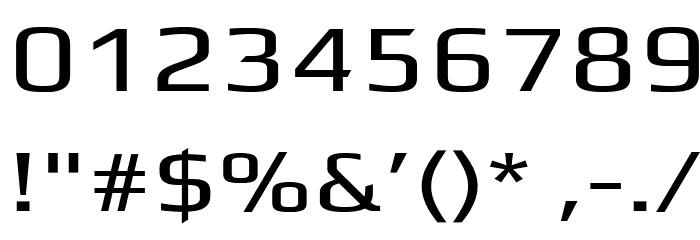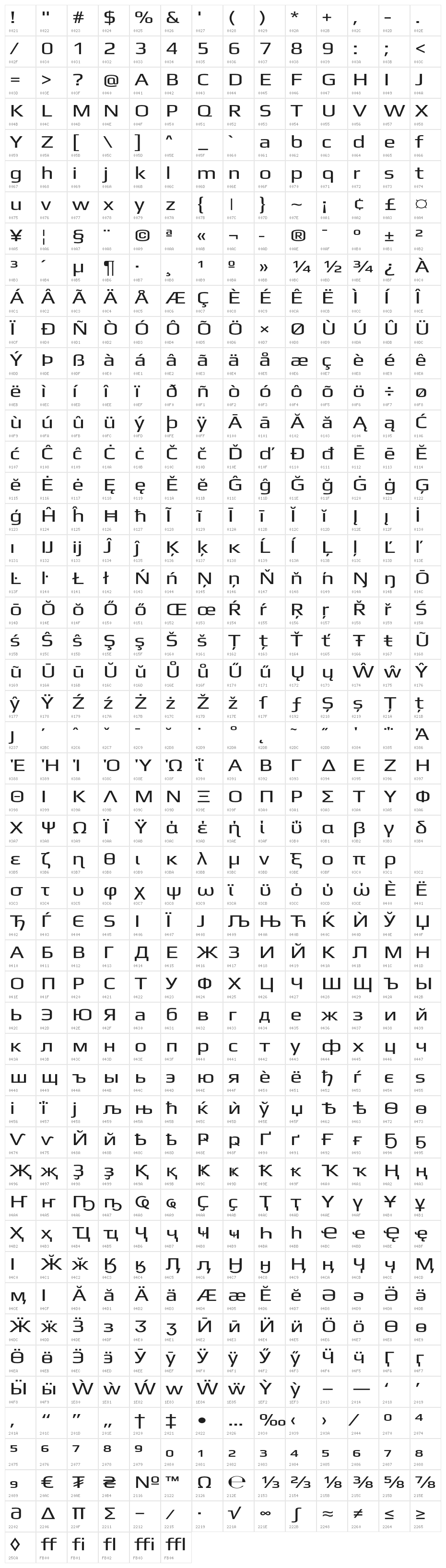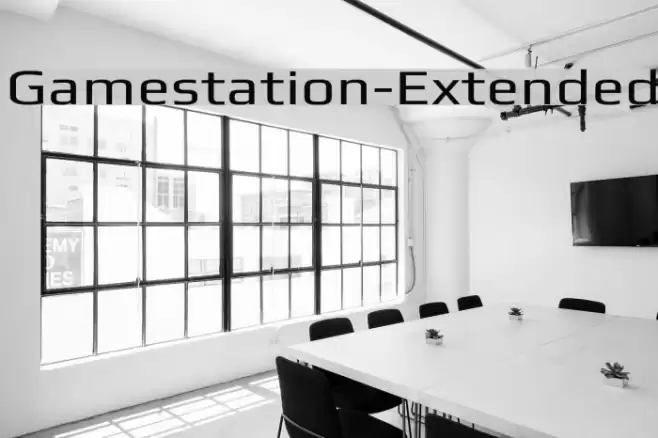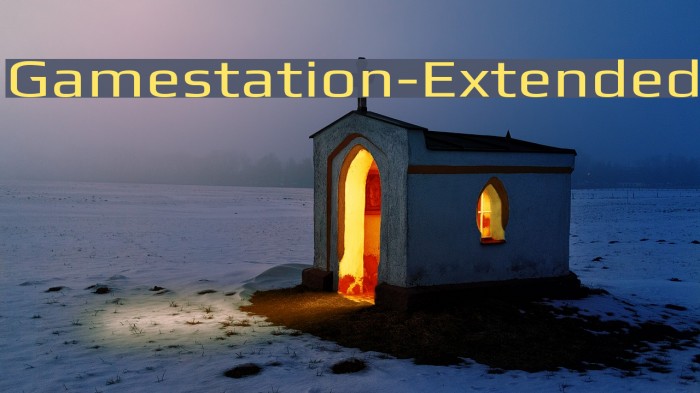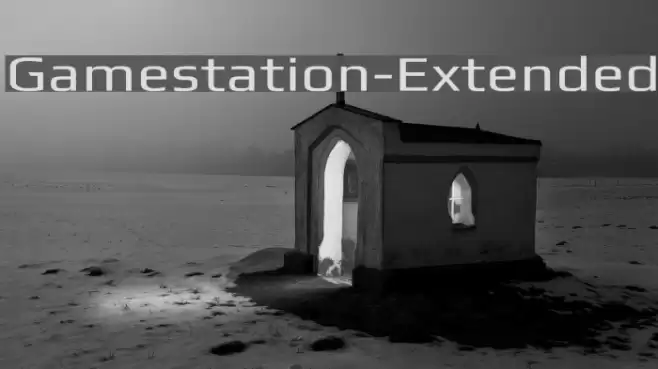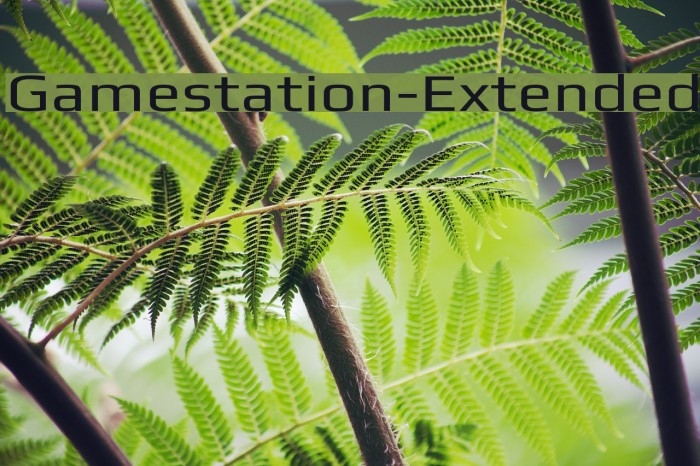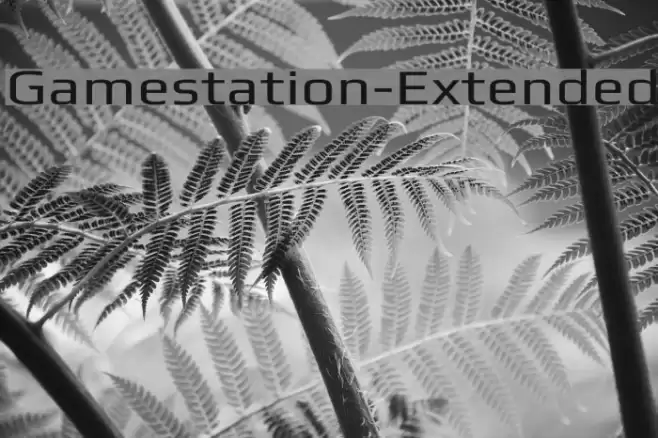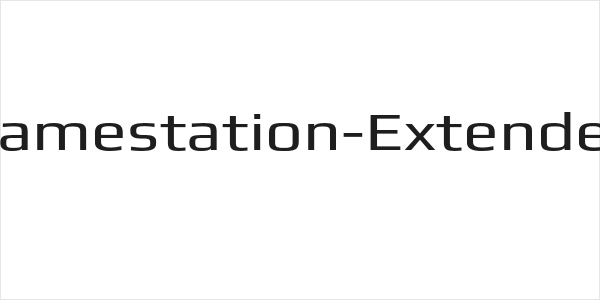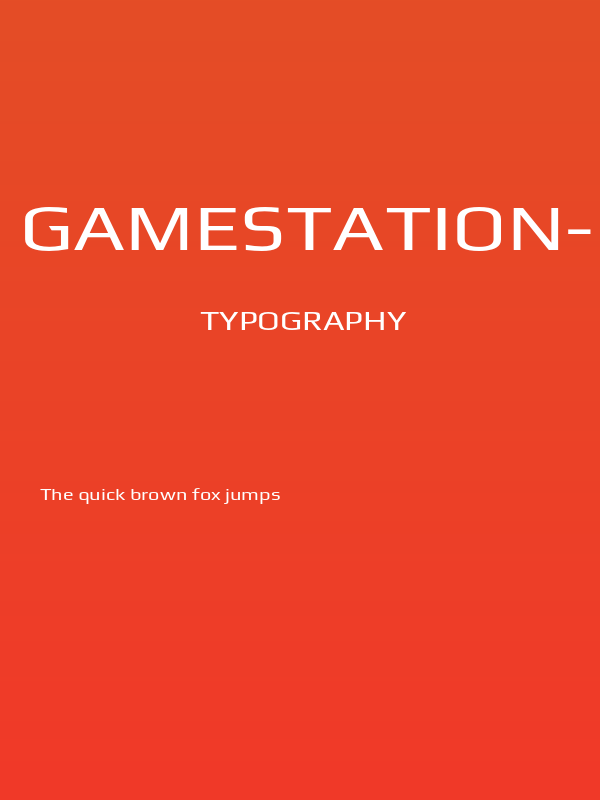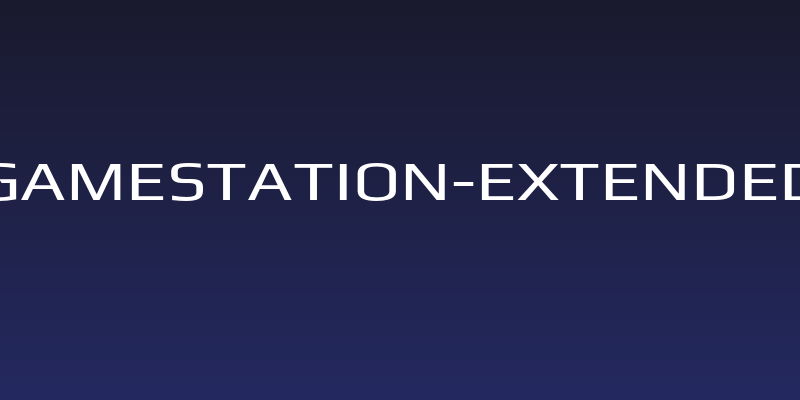
Gamestation-Extended Font
Gamestation-Extended Description
This font features a modern and sleek design with clean lines and a geometric structure. The uppercase letters are bold and assertive, while the lowercase letters maintain a consistent and harmonious flow. The numerals are clear and easily distinguishable, making them suitable for various applications. Special characters are included, providing versatility for different uses. The overall appearance is professional and contemporary, making it ideal for digital and print media.